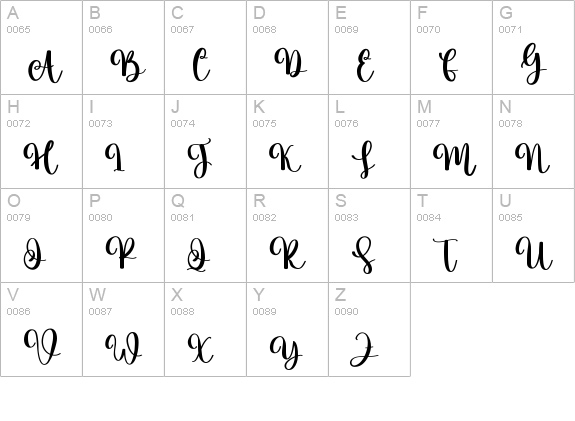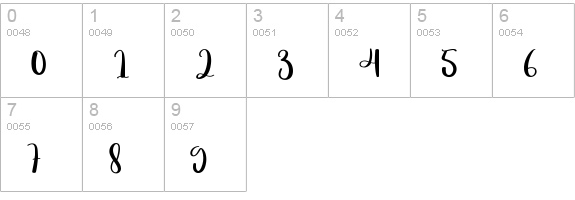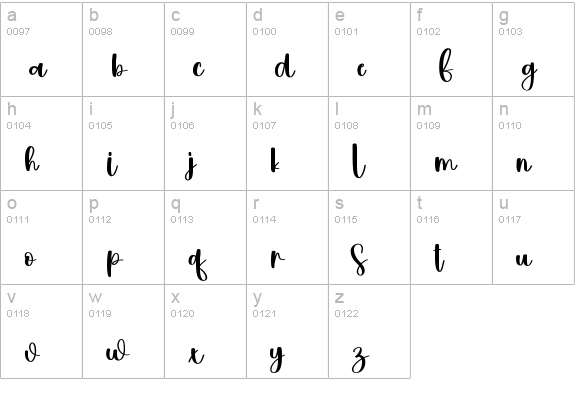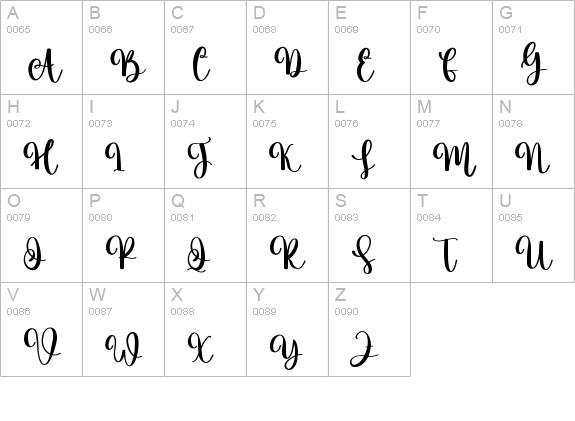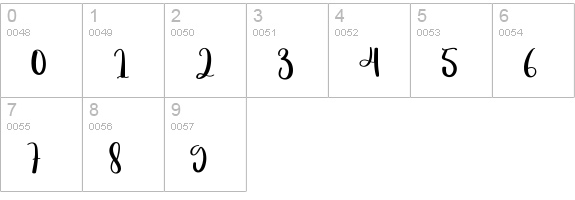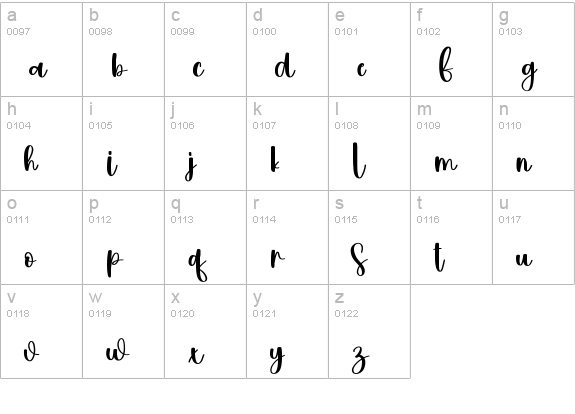
Brittney is a free for personal use font in the Script > Handwritten category, designed by scratchones. It has been downloaded 33 times and is available for Windows, Mac and Linux.
Brittney font is a stylish and elegant typeface that exudes sophistication and charm. With its graceful curves and modern appeal, Brittney font is perfect for adding a touch of class to any design project. Whether you're creating invitations, logos, or social media graphics, this versatile font is sure to make a lasting impression.